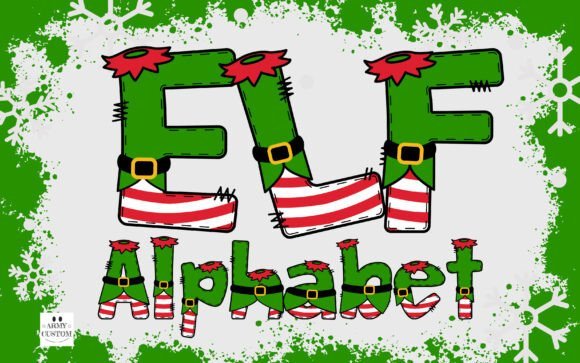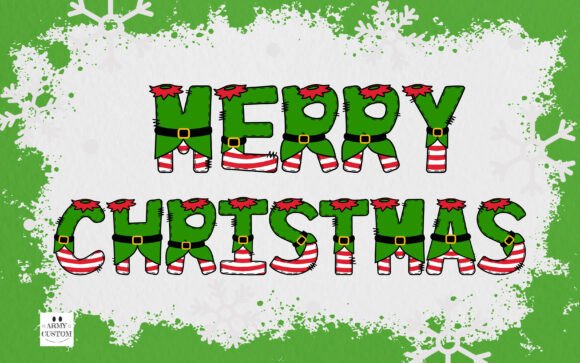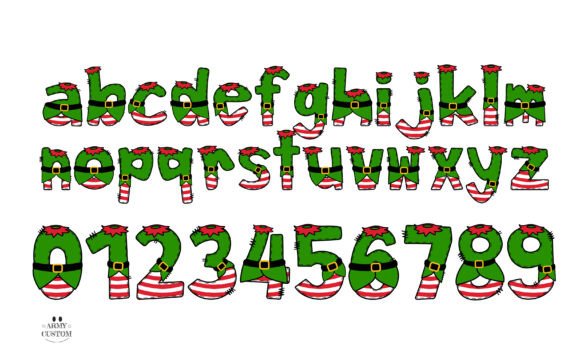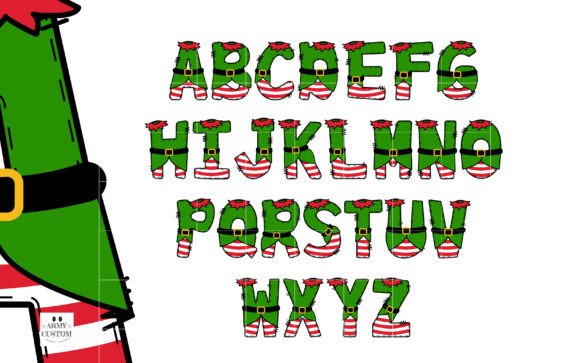
Deck the Halls with Holiday Cheer: Introducing the Elf Christmas Font
As the holiday season approaches, designers and crafty enthusiasts alike are on the hunt for the perfect font to capture the magic of Christmas. Whether you’re creating festive decorations, holiday cards, or social media graphics, you know that the right font can make all the difference. For those seeking a playful and whimsical addition to their design toolkit, look no further than the Elf Christmas Font.
This charming font is inspired by the adorable antics of Santa’s helpers, and its jovial style is sure to bring a dash of merriment to any design project. With the Elf Christmas Font, every letter spelled out becomes a joyous celebration of the holiday season. Whether you’re a seasoned designer or a DIY enthusiast, this font is a valuable addition to your creative arsenal.
Key Features of Elf Christmas Font
- Font Family: Elf Christmas Font is a unique, hand-drawn font designed to evoke the spirit of Christmas. It features a playful, whimsical style that is perfect for holiday designs.
- Unique Characteristics: The Elf Christmas Font features a distinctive, hand-drawn style with intricate details and ornaments, making it a standout choice for holiday designs.
Designer Review: Elf Christmas Font
Overall, I think the Elf Christmas Font has a certain charm to it. Here are some things that work well:
- ✨ Unique design: The font has a distinctive, whimsical feel that’s perfect for Christmas-themed designs.
- ✨ Fun and playful: The font’s irregularities and asymmetries give it a sense of personality that’s hard to find in more traditional fonts.
- ✨ Customizable: The font comes with a range of options for customizing the color, size, and style, making it easy to integrate into your design.
- ⚠️ Limited legibility: At smaller sizes, the font can become difficult to read due to its irregularities and lack of consistency.
- ⚠️ Limited character set: The font may not include all the characters you need, which can be a problem if you’re working on a complex design.
Overall, I think the Elf Christmas Font is a great choice for designers looking for a unique and playful font for their Christmas designs. Just be mindful of its limitations and use it judiciously.
The Elf Christmas font is perfect for creating festive holiday designs, such as:
Christmas cards, invitations, and gift tags.
Holiday social media posts and graphics.
Christmas party decorations and signage.
To get the most out of the Elf Christmas font, try combining it with other festive elements, such as snowflakes, holly, or candy canes.